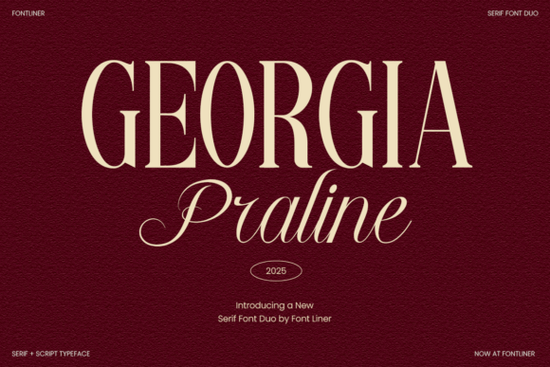
If you’ve been looking for a typeface that balances timeless structure with a gentle, handwritten feel, Georgia Praline Font might be exactly what you need. It’s a serif duo that pairs a classic, authoritative serif with a graceful script. That combination makes it versatile for everything from wedding invitations to product packaging, and it’s especially handy when you want both clarity and personality in the same project.
What exactly makes Georgia Praline a “duo” font?
Unlike many font families that offer only one style, Georgia Praline gives you two distinct but complementary typefaces: a refined serif and a flowing script. The serif side brings readability and a sense of tradition, while the script adds warmth and a handcrafted touch. You can use them together for example, pairing the serif for body text and the script for headings or use each one on its own. This flexibility is a big reason why Sweetberry Serif Font has also proven popular among designers who want a similar contrast between structure and flourish.
The script in this duo isn’t overly ornate or hard to read. It stays elegant but legible, which matters when you’re designing for real-world applications like menu boards or logo marks. And because both styles share similar proportions and tonal weight, they feel cohesive when placed together.
How can I use this font duo in my projects?
That’s the fun part. Because Georgia Praline combines two distinct moods, it works for a wide range of creative tasks:
- Logo and branding The serif gives your brand authority; the script makes it feel approachable. Use the script alone for a monogram or wordmark, or pair them for a full logotype.
- Wedding stationery Invitation suites, save-the-dates, and place cards benefit from the romantic script and the clean serif for addresses or ceremony details.
- Editorial layouts Headlines in the serif are strong, while pull quotes or subheadings in the script add visual contrast without being distracting.
- Product packaging Think premium candles, skincare, or chocolate boxes. The duo’s high-end feel fits luxury branding perfectly.
If you’re working on a project that needs a slightly different personality, Monarch Heritage Font offers an alternative serif style with a more ornate, vintage character. Comparing the two can help you decide which mood suits your brand identity best.
Is Georgia Praline suitable for print-on-demand products?
Absolutely. Many print-on-demand sellers use this font duo for t‑shirt quotes, mugs, notebooks, and wall art. The script adds a hand-lettered charm that sells well in the “cozy aesthetic” niche, while the serif keeps longer text readable when printed small.
One tip: because the script has flowing connections, test it at different sizes before going to print. It typically works well from 12 pt upward, but for tiny items like labels, you might want to stick with the serif alone.
How does Georgia Praline compare to other serif scripts?
There are plenty of script + serif duos out there, but Georgia Praline stands out for its balance. The serif isn’t too thin or too heavy, and the script doesn’t have exaggerated swashes that make it hard to read. It sits comfortably in the middle elegant without being fussy, classic without feeling dated.
If you prefer a bolder, more modern serif, Sweetberry Serif Font offers a fresh alternative with its own script companion. Similarly, Monarch Heritage Font brings a more decorative feel that works well for heritage-style branding. Testing a few options side by side helps you pick the best fit for your specific project.
What should I check before buying?
Before you hit purchase, here’s a quick checklist to make sure Georgia Praline fits your workflow:
If you’re still comparing options, take a look at a detailed overview of Georgia Praline Font to see usage examples and technical specs. Pairing it with a simple, clean layout often gives the best results let the fonts do the heavy lifting.